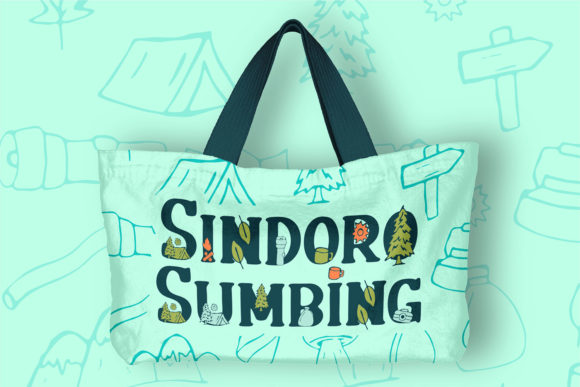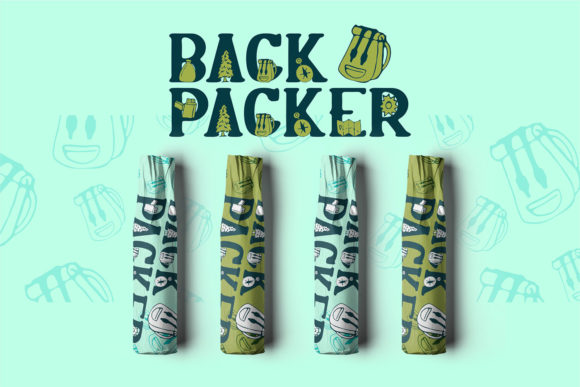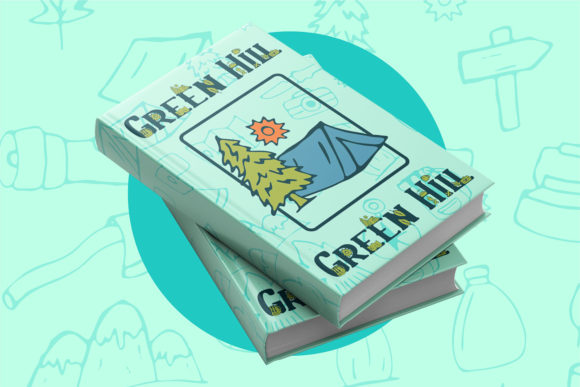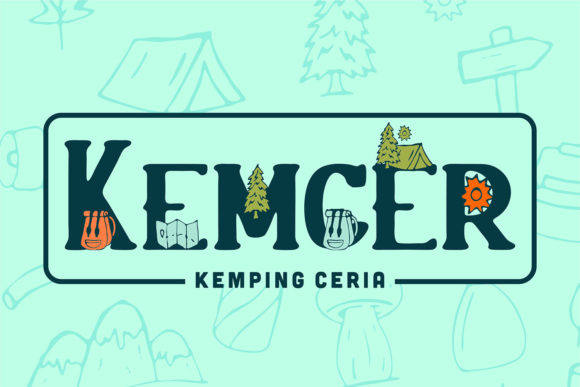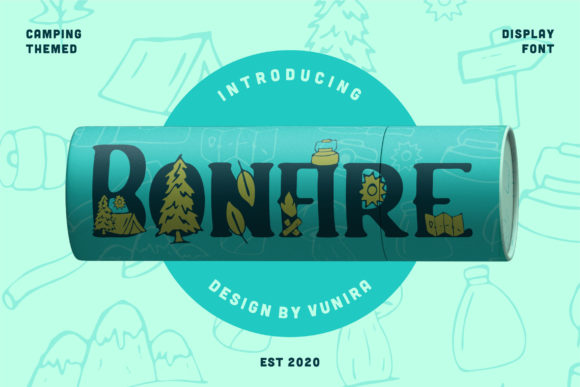
Bonfire Font: Ignite Your Autumn and Camp Designs
As the leaves change colors and the air grows crisper, designers and crafters alike are on the lookout for the perfect font to add a touch of autumnal magic to their projects. Look no further than the Bonfire Font, an original and fun decorative font that’s perfect for this time of year. In this article, we’ll dive into the world of Bonfire Font and explore how it can bring your autumn and camp-related ideas to life.
What is Bonfire Font?
Bonfire Font is a unique and playful decorative font that’s designed to evoke the warmth and coziness of a crackling bonfire. With its rugged, hand-crafted aesthetic, this font is perfect for adding a touch of rustic charm to any design project. Whether you’re working on a seasonal greeting card, a camping-themed poster, or a social media graphic, Bonfire Font is sure to make your project stand out.
Key Features of Bonfire Font
- Unique and Original Design: Bonfire Font is an entirely original design, crafted with love and care to bring a touch of autumnal magic to your projects.
- Decorative and Playful: This font is perfect for adding a playful touch to your designs, with its rugged and hand-crafted aesthetic.
- Perfect for Autumn and Camp Themes: Whether you’re working on a project for a camping trip, a fall festival, or simply want to add a touch of autumnal charm to your design, Bonfire Font is the perfect choice.
- Easily Readable: Despite its decorative nature, Bonfire Font is still easily readable, making it perfect for use in a variety of design projects.
Using Bonfire Font in Your Designs
So, how can you use Bonfire Font in your designs? The possibilities are endless! Here are a few ideas to get you started:
- Autumn Greeting Cards: Add a touch of seasonal charm to your greeting cards with Bonfire Font.
- Camping Posters: Create eye-catching posters for your next camping trip with this fun and playful font.
- Social Media Graphics: Add a touch of autumnal magic to your social media graphics with Bonfire Font.
- Fall Festival Signage: Create eye-catching signage for your fall festival or event with this unique and decorative font.
Tips and Tricks for Using Bonfire Font
Here are a few tips and tricks for getting the most out of Bonfire Font:
- Experiment with Colors: Bonfire Font looks great in a variety of colors, from warm oranges and yellows to deep reds and blacks.
- Pair with Other Fonts: Try pairing Bonfire Font with other fonts for a unique and interesting look.
- Use in Combination with Images: Bonfire Font looks great when used in combination with images of autumn leaves, campfires, and other seasonal imagery.
In conclusion, Bonfire Font is a unique and fun decorative font that’s perfect for adding a touch of autumnal magic to your design projects. With its rugged, hand-crafted aesthetic and easily readable design, this font is perfect for use in a variety of projects, from autumn greeting cards to camping posters. So why not give Bonfire Font a try and see how it can bring your autumn and camp-related ideas to life?